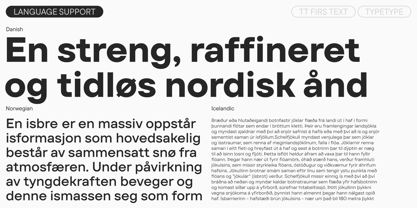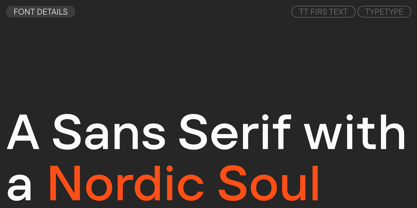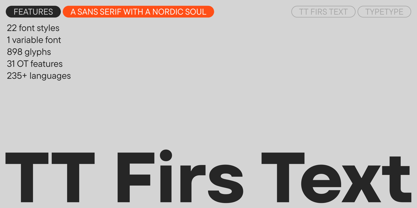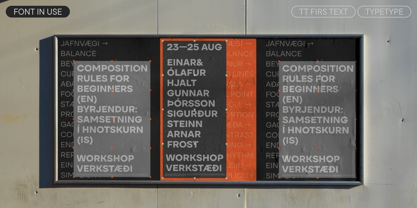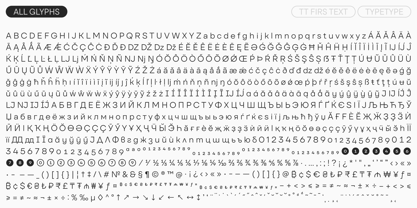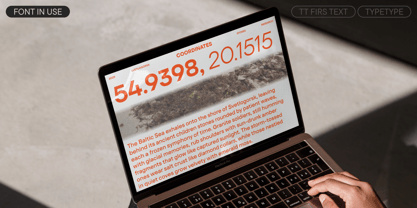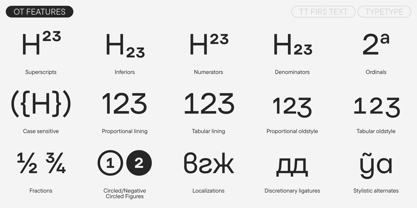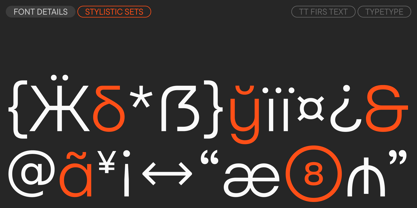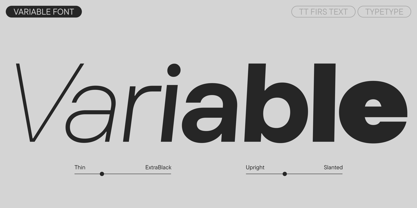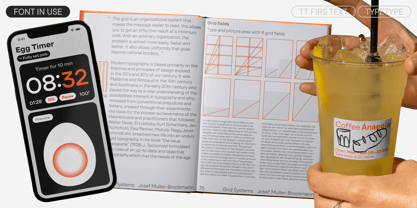
TT Firs Text
by TypeType
The TT Firs Text Font Family was designed by Marina Khodak, TypeType Team, Toma Streltsova and published by TypeType. TT Firs Text contains 23 styles and family package options. More about this family
Meet TT Firs Text—a well-balanced geometric sans serif with a Nordic character!
TT Firs Text is a text typeface created based on the TT Firs Neue typeface, which was updated in 2023. Our goal was to make it more neutral while still giving it its own unique style. You can read more about the typeface's development process in our article.
TT Firs Text turned out to be simultaneously cool and elegant, stern and captivating, and most importantly, exceptionally versatile. We preserved the aesthetic of Scandinavian minimalism but completely redrew all the expressive elements, making them softer and more traditional. The texture of the set text has become more uniform, which ensures the font remains clear and legible even when setting large blocks of text in small point sizes.
This typeface is equally well-suited for use on websites, for book typesetting, branding and packaging design, and for posters and announcements. Its range of application is practically limitless. TT Firs Text pairs perfectly with TT Firs Neue; however, thanks to its neutral character, it also combines easily with other typefaces.
TT Firs Text includes:
• 23 styles: 11 uprights, 11 italics, and 1 variable font
• 898 glyphs in each style, including characters for extended Latin and Cyrillic
• 31 OpenType features, including circled numerators and a stylistic alternate for the ampersand
• Support for over 240 languages
TT Firs Text—for texts with a Scandinavian touch!